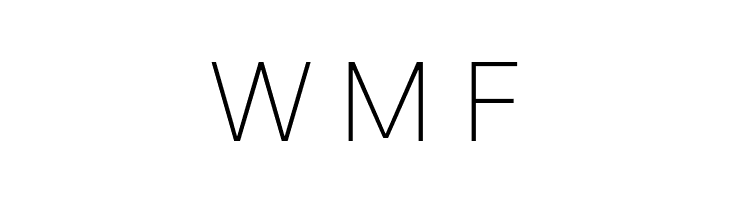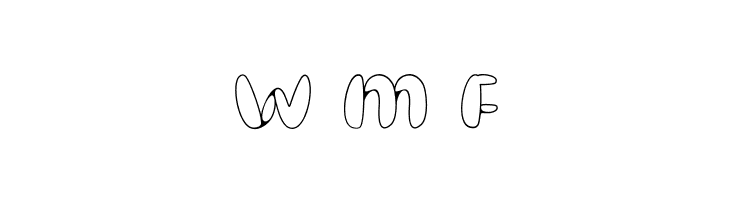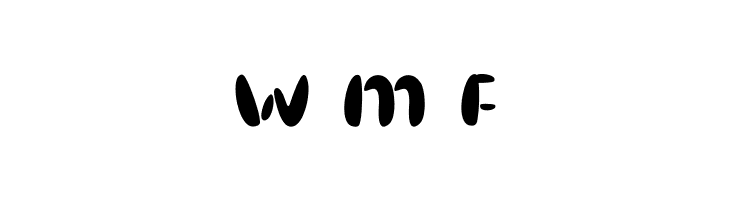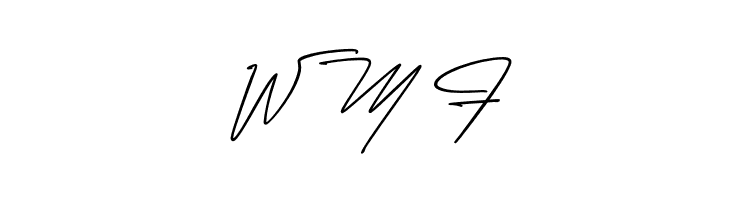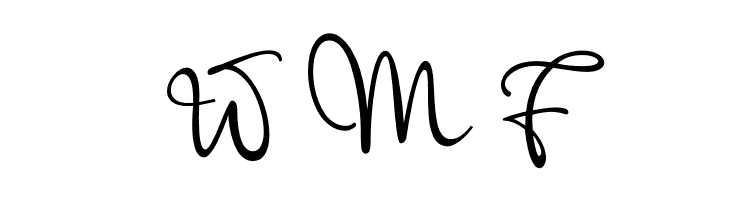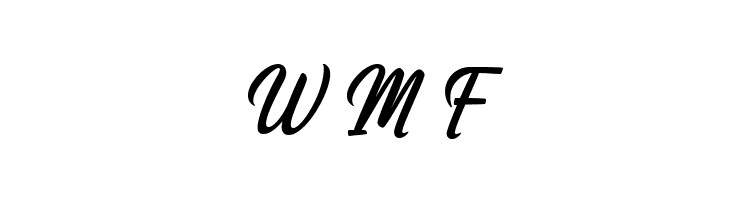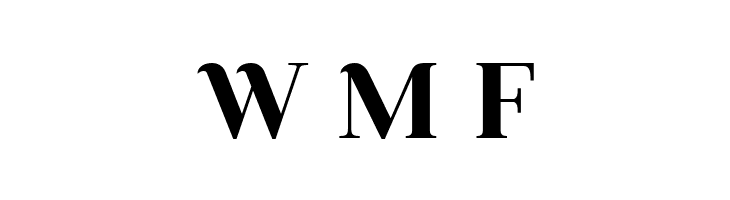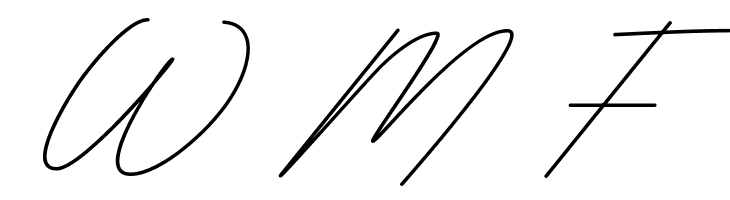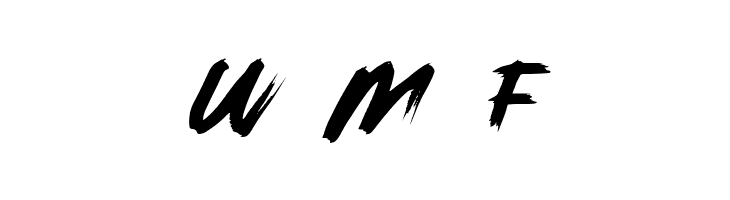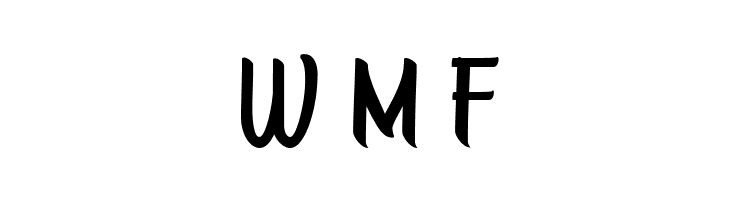
A sleek, modern sans-serif font with a light, italic style and low contrast.
A modern sans-serif font with clean lines and balanced proportions.
A bold, italic sans-serif font with a modern and dynamic style.
A modern sans-serif font with geometric shapes and uniform strokes.
A modern, semi-bold sans-serif font with clean lines and excellent readability.
A sleek, semi-bold italic sans-serif typeface with a modern aesthetic.
A sleek, modern sans-serif font with an italic slant and consistent stroke width.
A bold, modern sans-serif font with clean lines and excellent legibility.
A sleek, modern sans-serif font with a light, italic style.
A sleek, modern, and thin italic font with a minimalist aesthetic.
A thin, modern sans-serif font with a sleek and minimalist style.
A bold, modern sans-serif font with strong geometric shapes.
A modern, light sans-serif font with clean lines and excellent readability.
A playful, balloon-like font with a three-dimensional, whimsical style.
A playful, bubble-like font with hollow interiors and rounded edges.
A playful, balloon-like font with a bold and whimsical style.
A bold, playful font with rounded, bubble-like characters ideal for dynamic designs.
A bold, playful font with rounded, bubble-like characters.
A bold, playful font with rounded edges and decorative cutouts.
A playful font with cat face motifs on each character, perfect for fun and creative projects.
A playful serif font with decorative mushroom-themed uppercase letters.
A dynamic, handwritten font with elongated, slanted characters.
A cursive, handwritten font with elegant, flowing lines.
A whimsical, swash-style font with fluid, interconnected strokes.
A bold, brush-style font with an energetic and artistic flair.
A bold, playful script font with a handwritten style.
A dynamic and expressive handwritten font with fluid strokes and playful curves.